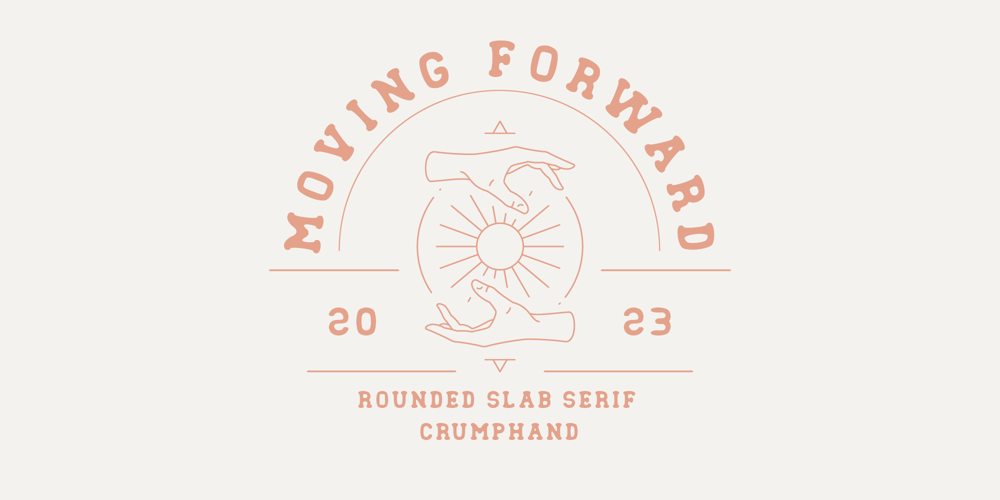
Moving Forward Font Family was designed by Stefie Justprince and published by Crumphand. Moving Forward contains 1 styles and family package options. Introducing, Moving Forward a Slab Serif Font.inspired by vintage and modern letterforms with alternate characters and full symbol sets.Moving Forward can be used for posters, web headers, and display text of all kinds.good kerning and readable.